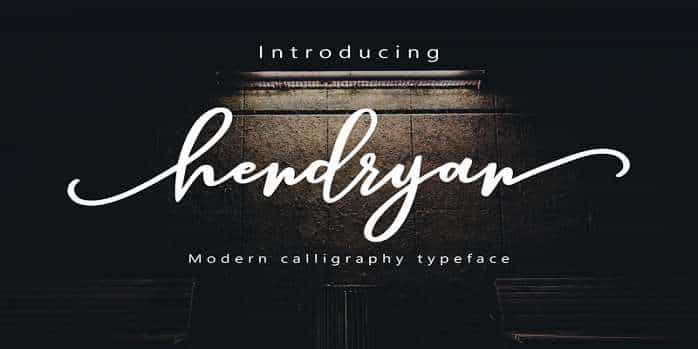
Discover Hendryan Font, part of the Calligraphy collection—a versatile and unique font perfect for adding a personal touch to your projects. Download it for free and enjoy crafting designs with style, from invitations to social media posts. This font is available exclusively for personal use, giving you the freedom to create without limits. Unlock your creativity with Hendryan Font today!
This script has 230+ glyphs and it is named as Hendryan Script. The Open Type features included in the fonts as alternative characters were Swash, Stylistic Sets, Stylistic Alternates, Contextual Alternates. The Open Type features can be manipulated by Open Type intelligent programs like Adobe Illustrator, Adobe InDesign, Adobe Photoshop Corel Draw X version, And Microsoft Word.